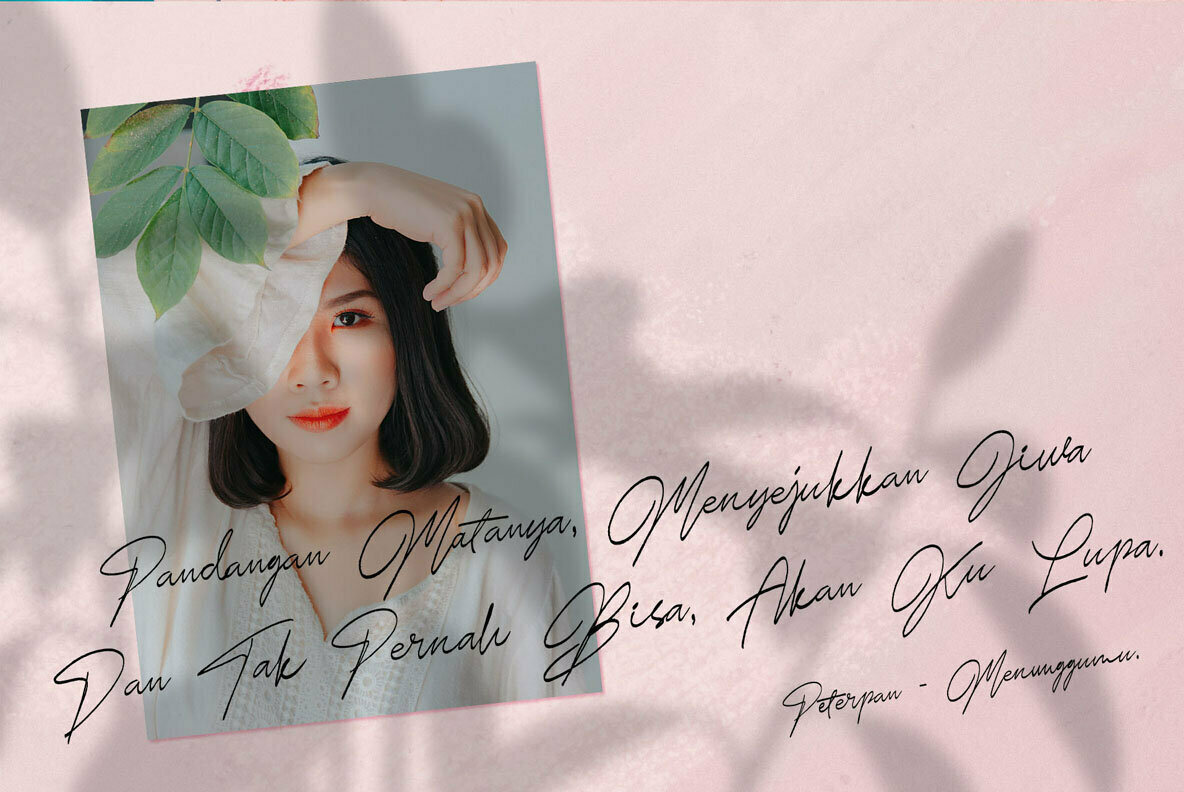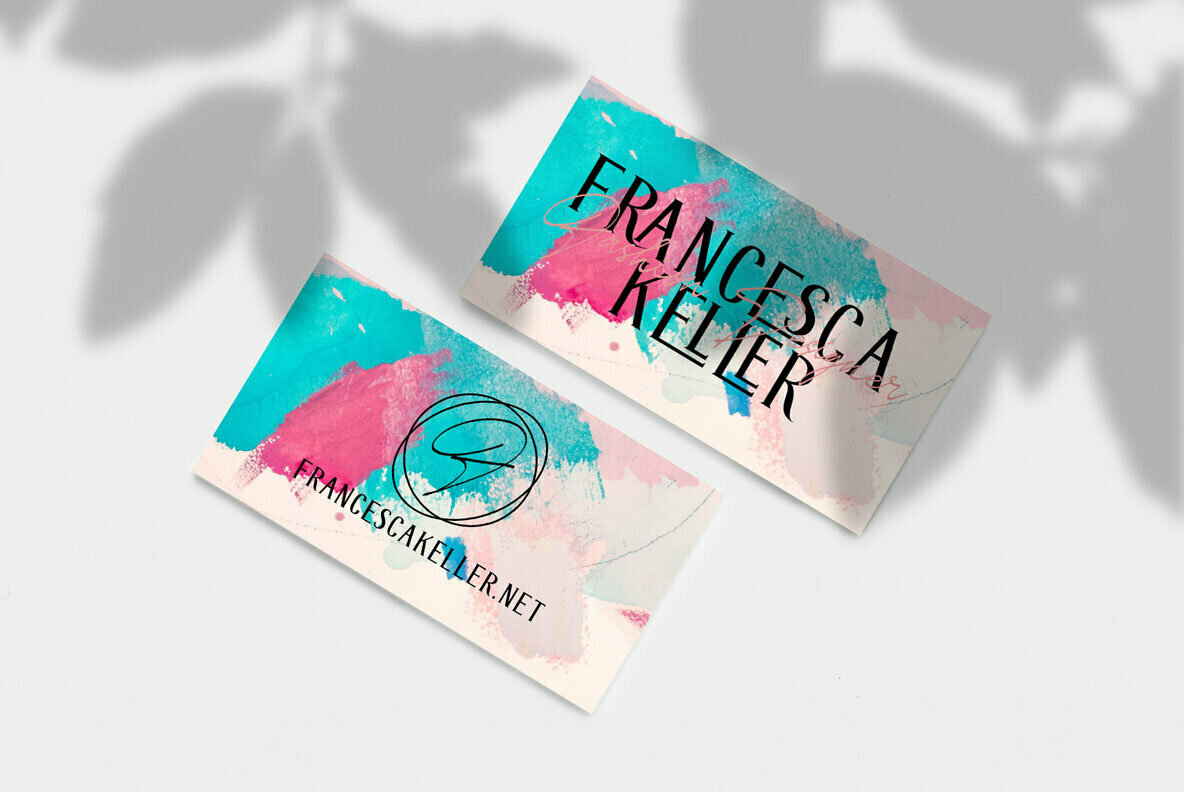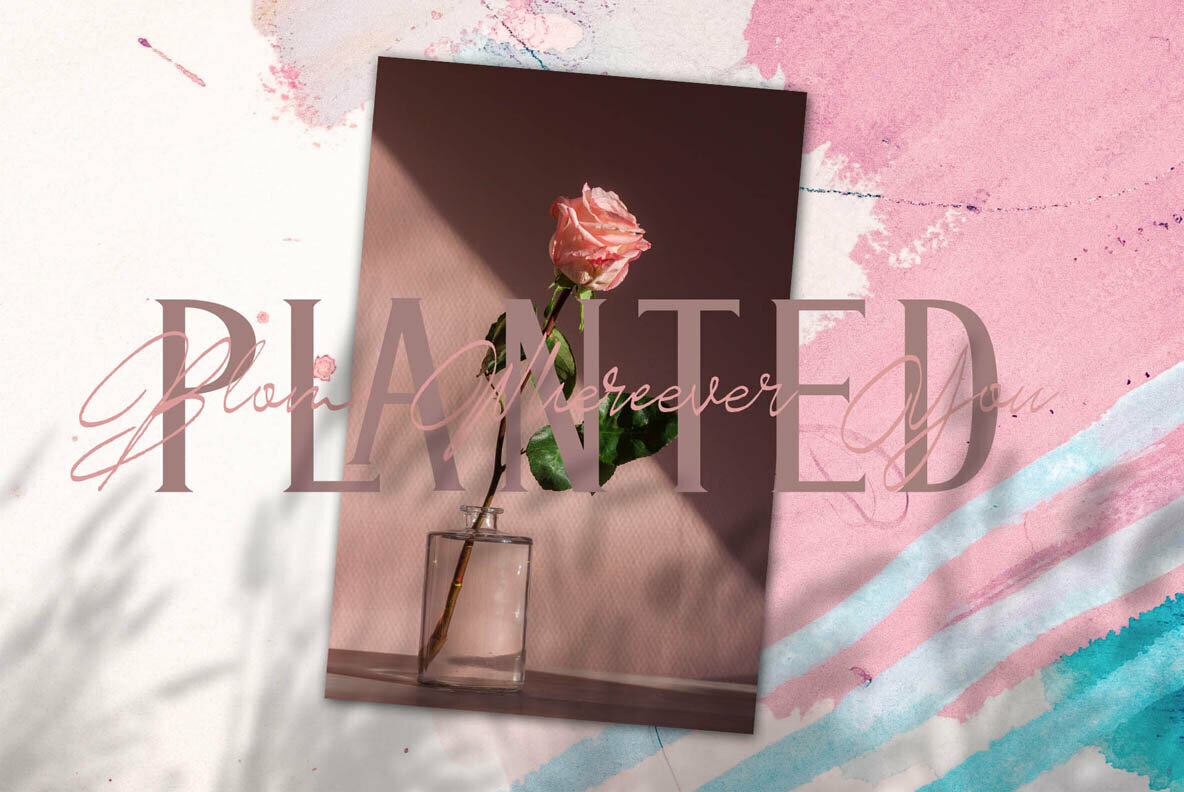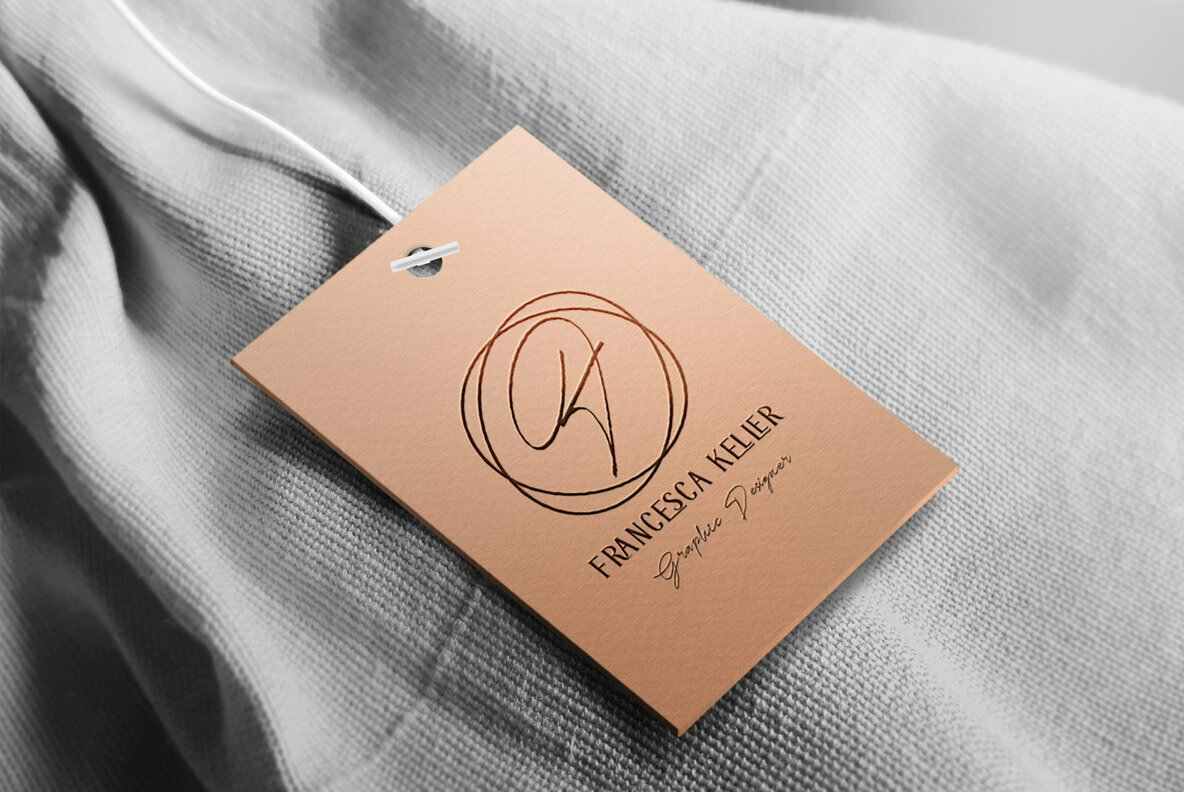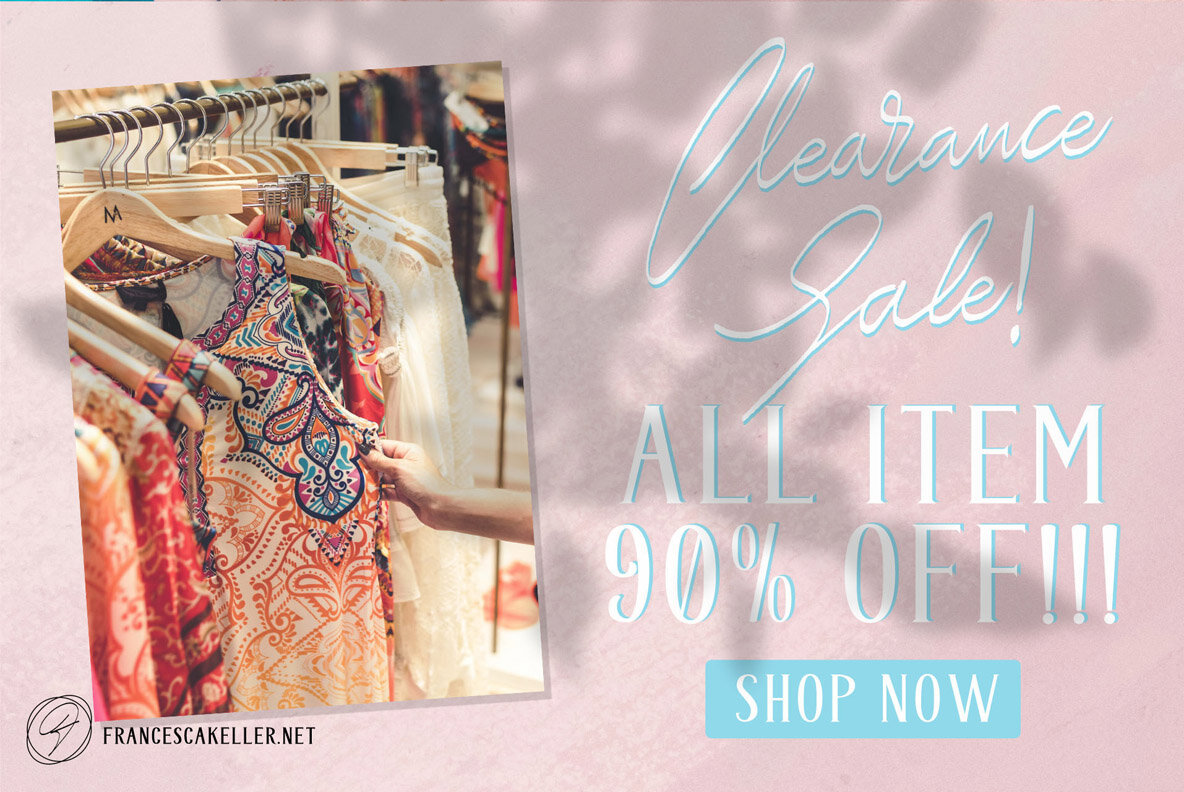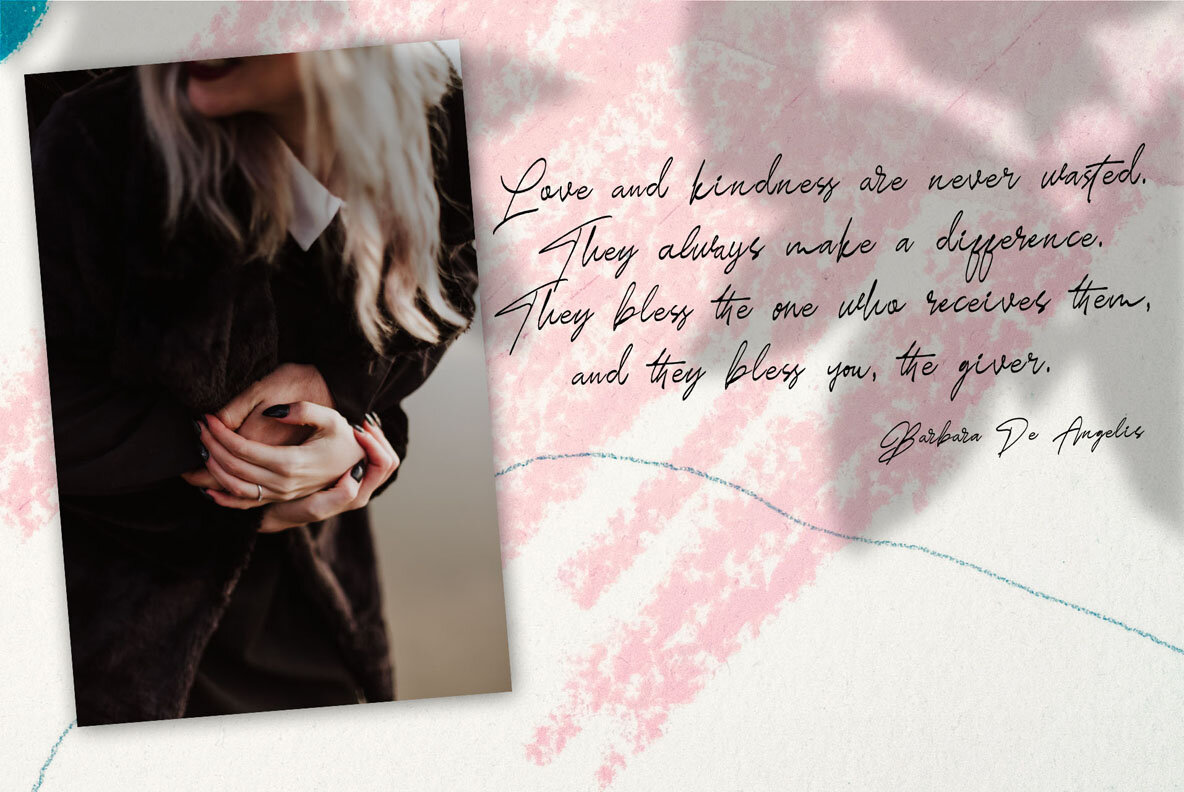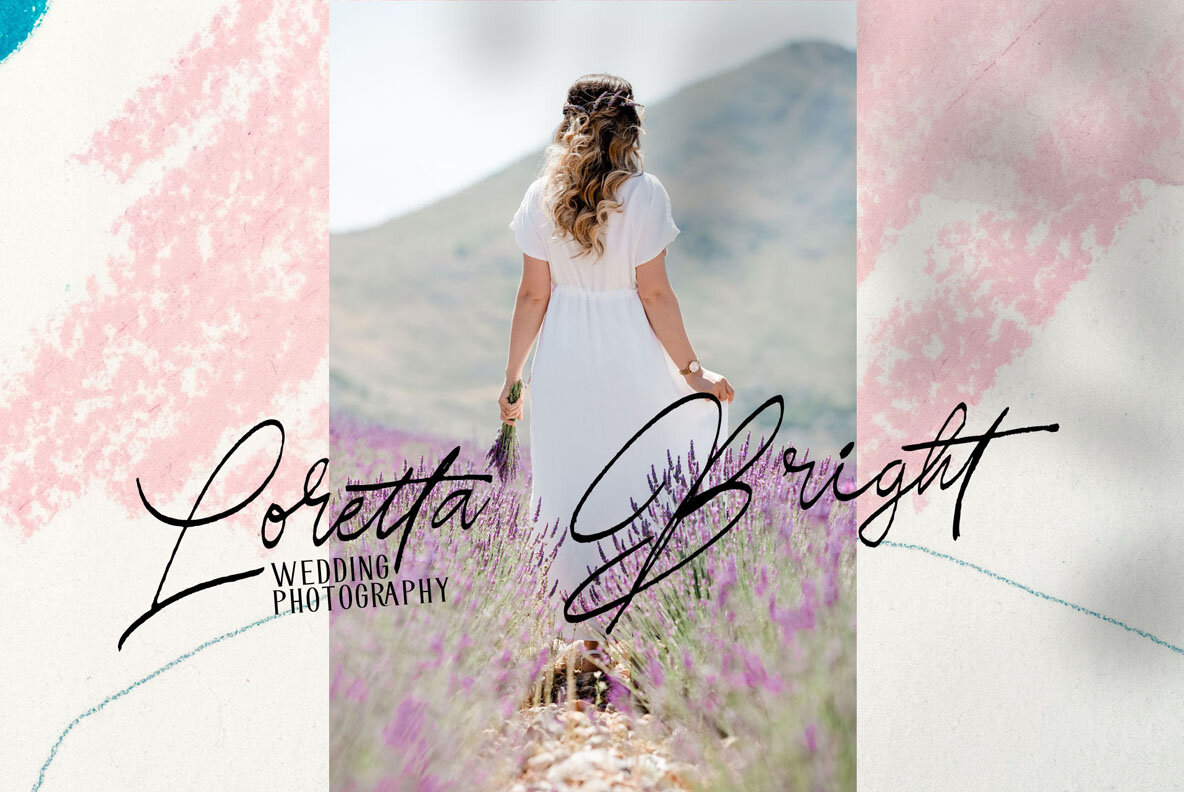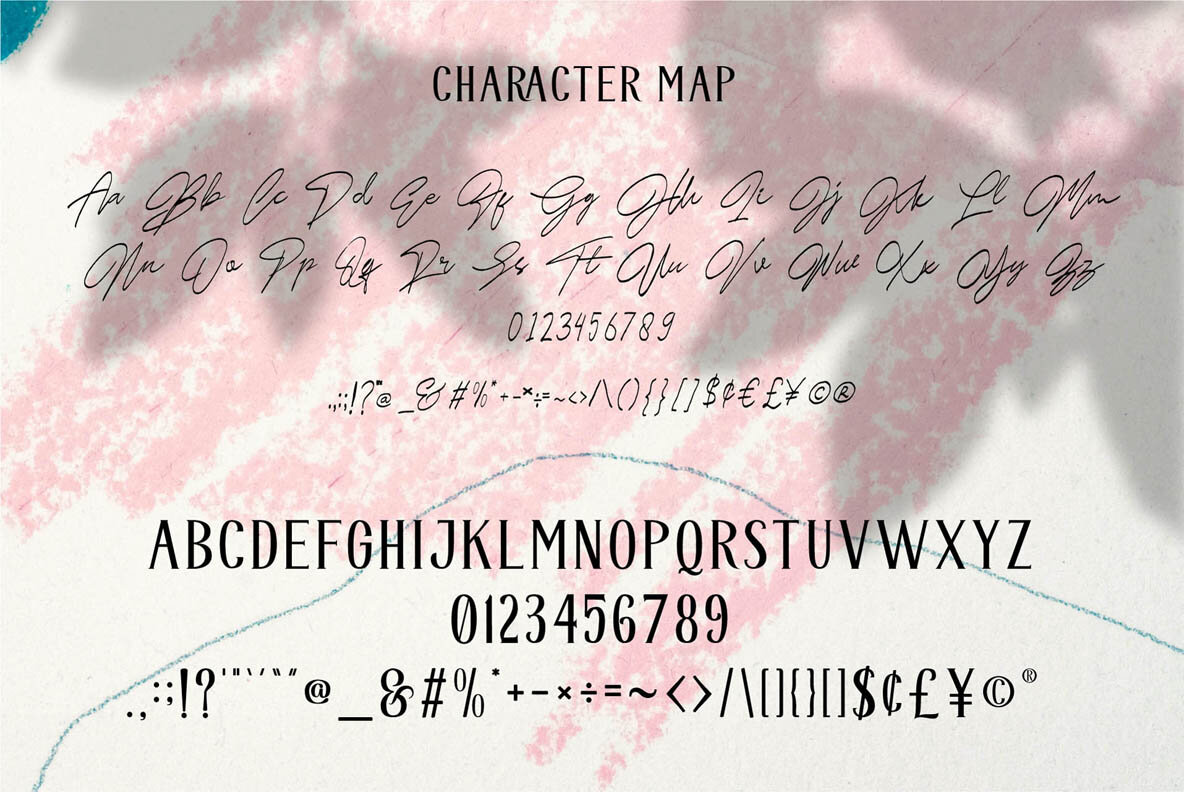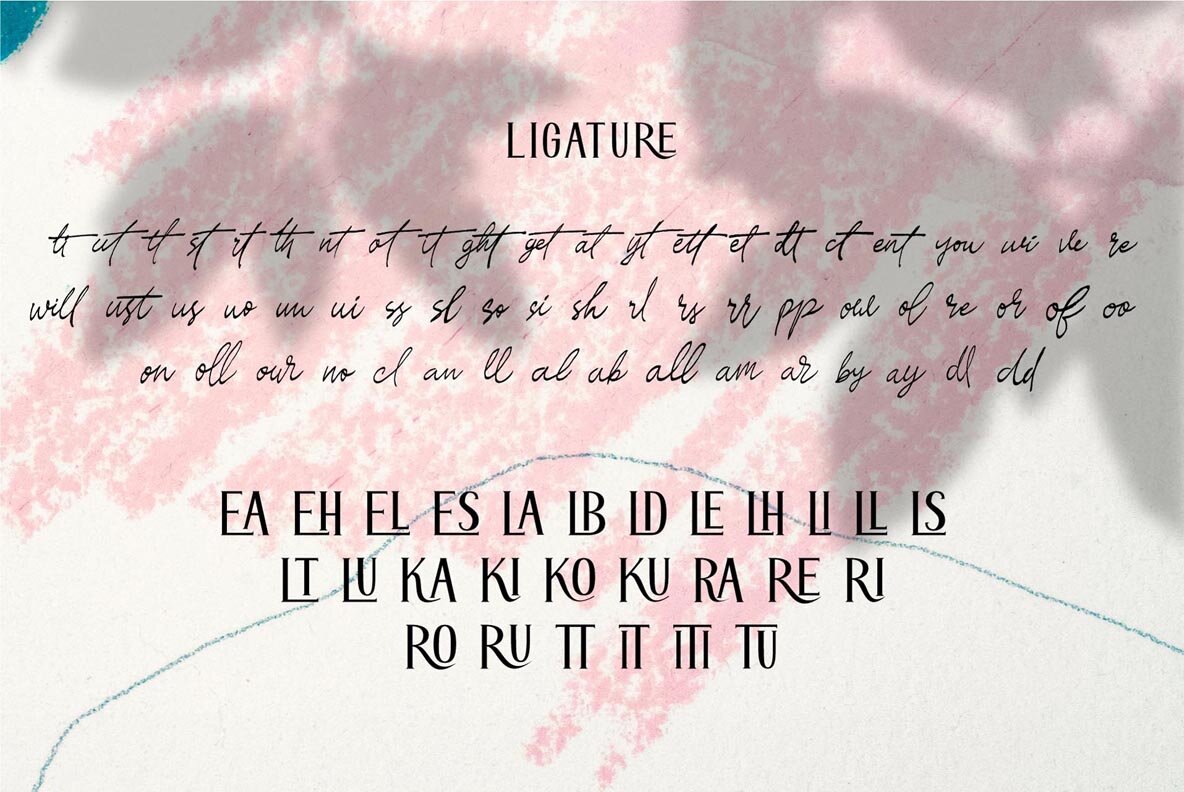
Las Pariellas Font
Meet Las Pariellas, a versatile font choice combining a handwritten aesthetic with a classic serif. This dynamic duo is perfect for designers seeking a font that easily pairs elements of hand-drawn charm with the elegance of serif. Crafted with a real fountain pen, the handwritten variation imparts a genuine rough texture, ideal for adding authenticity to any design. Las Pariellas is particularly suited for projects that demand a playful yet sophisticated touch. Whether you're working on signatures, posters, fashion labels, weddings, or branding endeavors, this font accommodates a wide range of creative pursuits without compromising style.Las Pariellas: Dual Style Font for Creative Projects